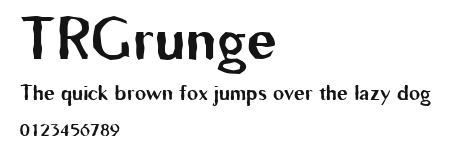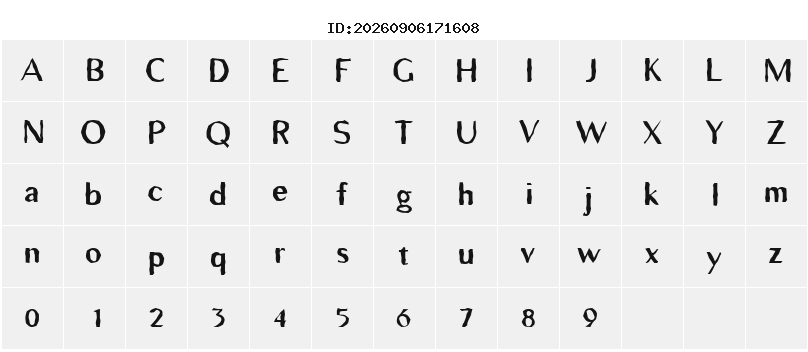
TRGrunge Preview
• Font Name: TRGrunge
• Full Font Name: TRGrunge
• PostScript Name: TRGrunge
About TRGrunge.ttf
TRGrunge.ttf is a modern, elegant sans-serif font designed for ultimate readability and visual harmony. Perfect for branding, headlines, web design, and print materials.